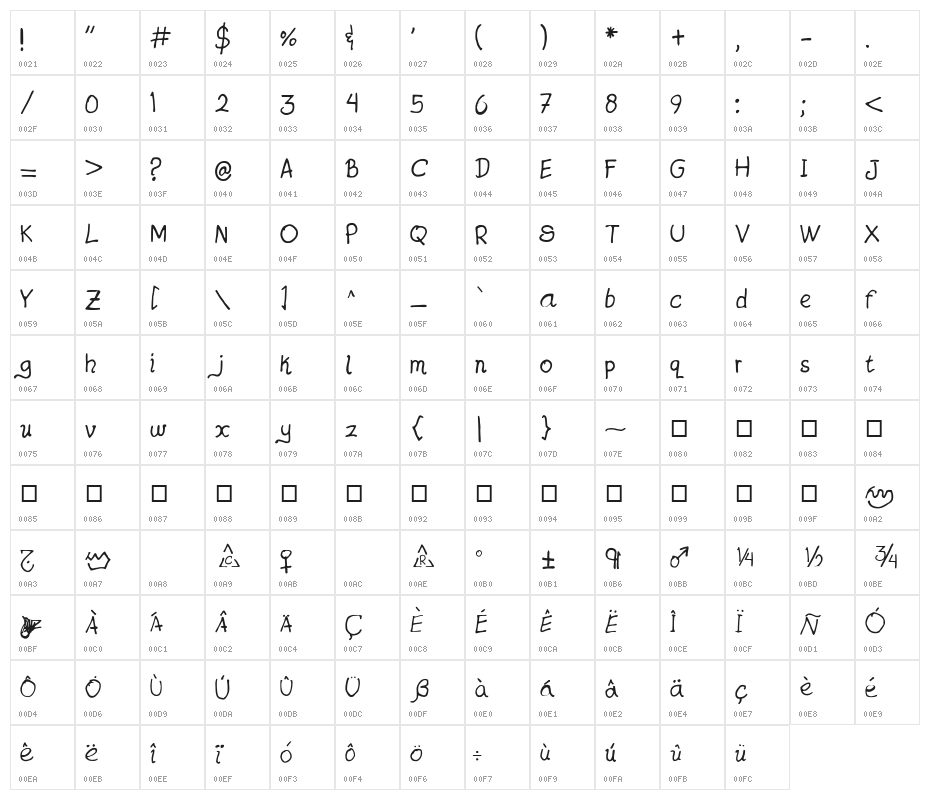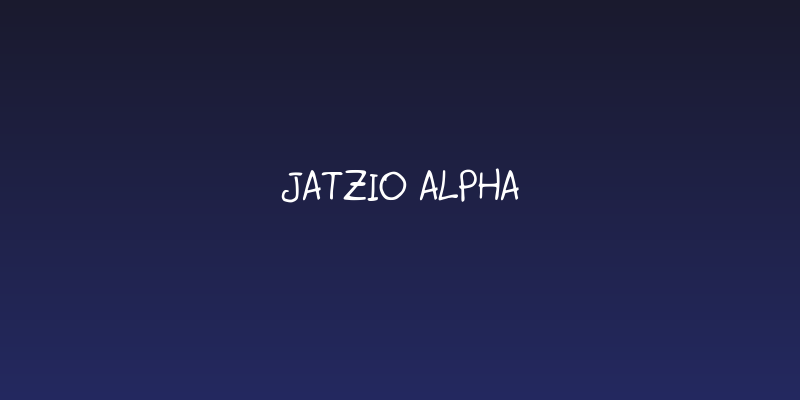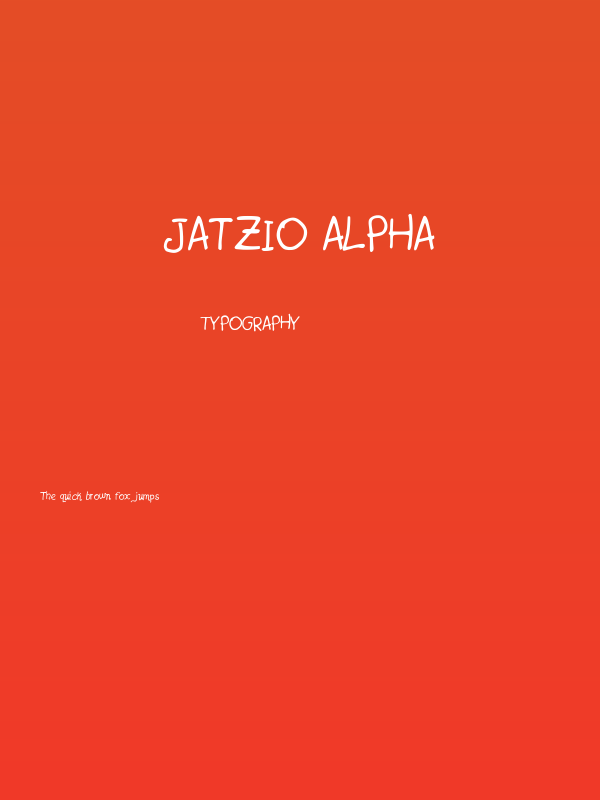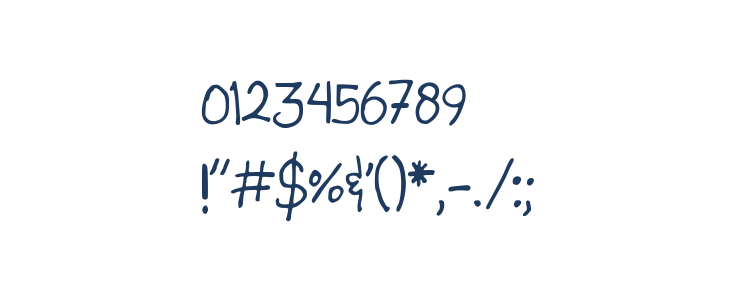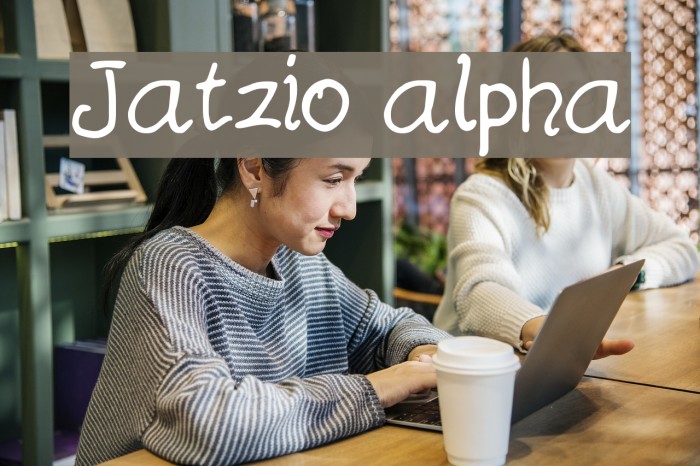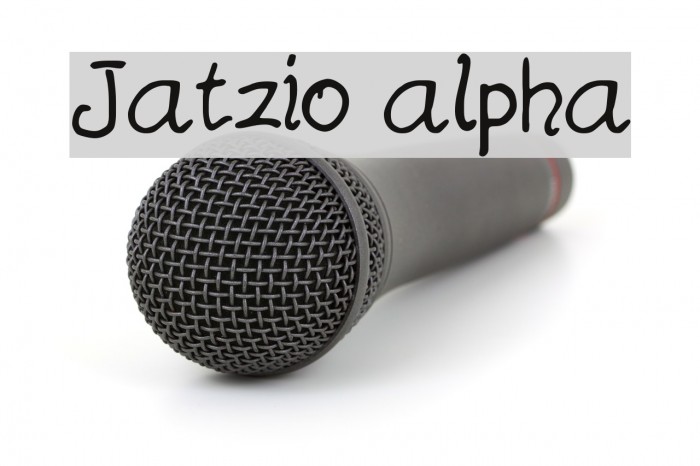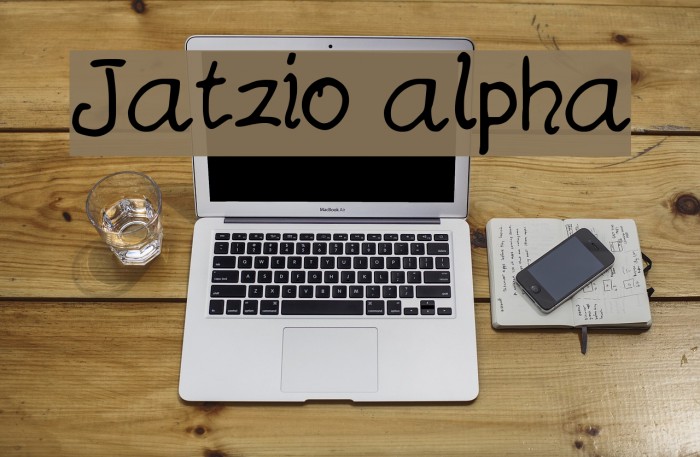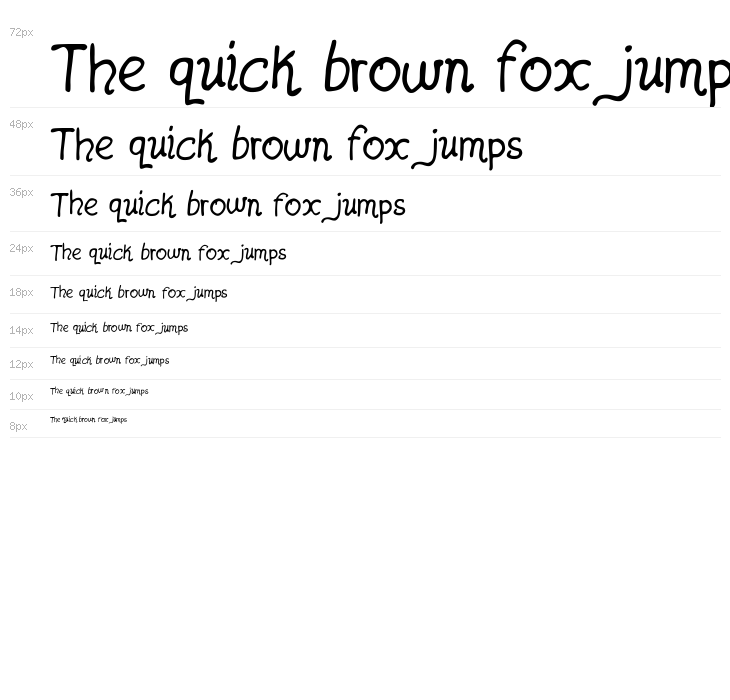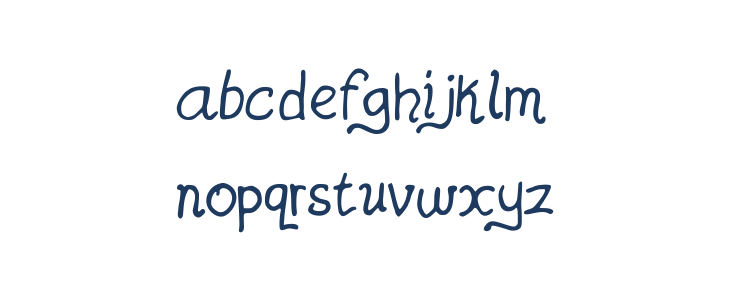
Jatzio alpha Font
Jatzio alpha Description
This font features a playful and casual handwritten style, characterized by its smooth, flowing lines and slightly irregular shapes. The uppercase letters are bold and rounded, giving a sense of friendliness and approachability. The lowercase letters maintain a consistent style, with a slight slant that adds to the informal feel. Numbers are clear and easy to read, matching the overall aesthetic. Special characters are designed with the same playful touch, ensuring consistency throughout. This font is perfect for projects that require a personal, human touch, such as invitations, greeting cards, or children's books.